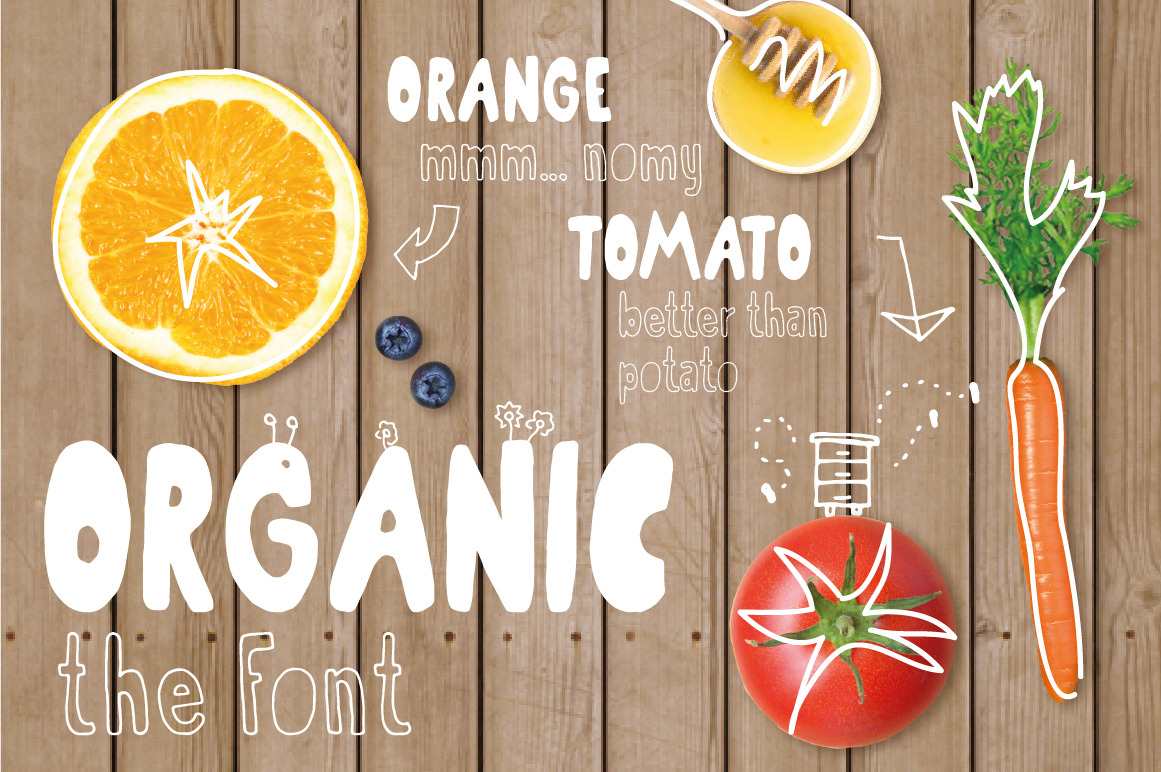
Organic the healthiest font family.
Say yes to this healthy & completely organic font. It's an handlettered typeface created with extra attention to it's fresh and easy-going look. Fantastic for all kinds of food-related graphics, like seasonal posters, quotes, food-market flyers or whatever you can imagine...
Every single letter has been carefully drawn, then scanned, edited and proceed by font-creating magic. Now arriving as OTF file.
- Organic Regular ( outline )
- Organic Bold ( filled )